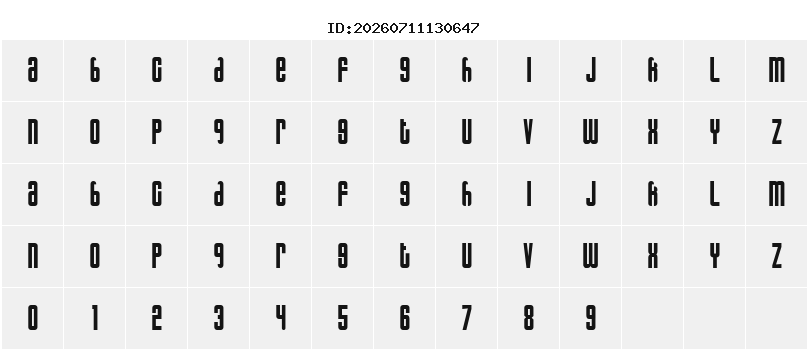
Marmalade Preview
About Marmalade.ttf
Marmalade.ttf is a modern, elegant sans-serif font designed for ultimate readability and visual harmony. Perfect for branding, headlines, web design, and print materials.